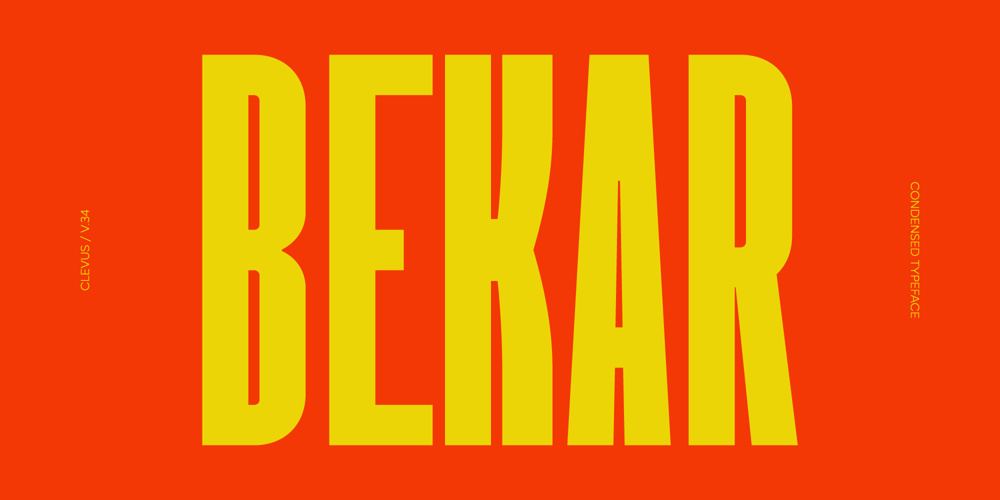
Bekar
Bekar font
Bekar Font Family was designed by Alfinu Zafir and published by Clevus. Bekar contains 1 styles and family package options. Proudly present Bekar Font, is a modern and bold condensed font inspired by classic grotesque typefaces.Bekar equipped with several OpenType. Have 40 unique alternates and ligatures. Comes with alternatives and ligatures, and helps to create stunning logos, quotes, posts, blog posts, branding projects, magazine imagery, wedding invitations, poster and much more.Follow My Shop For Upcoming Updates Including Additional Glyphs And Language Support. And Please Message Me If You Want Your Language Included or If There Are Any Features or Glyph Requests, Feel Free to Send me A Message.Bekar delivers a powerful impact with a sleek, contemporary style.Get Bekar now and let your designs shine!Have a Good Day !